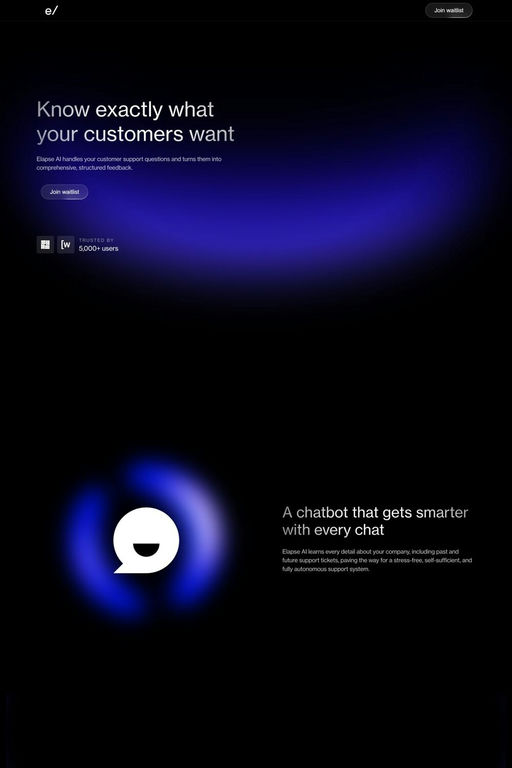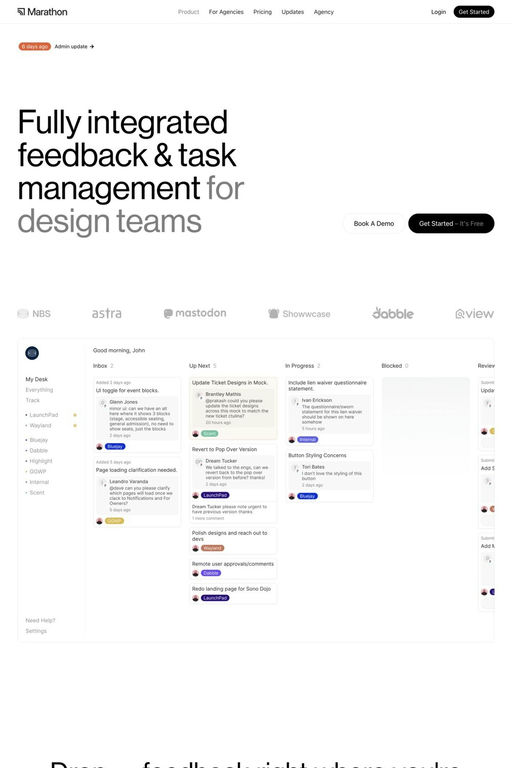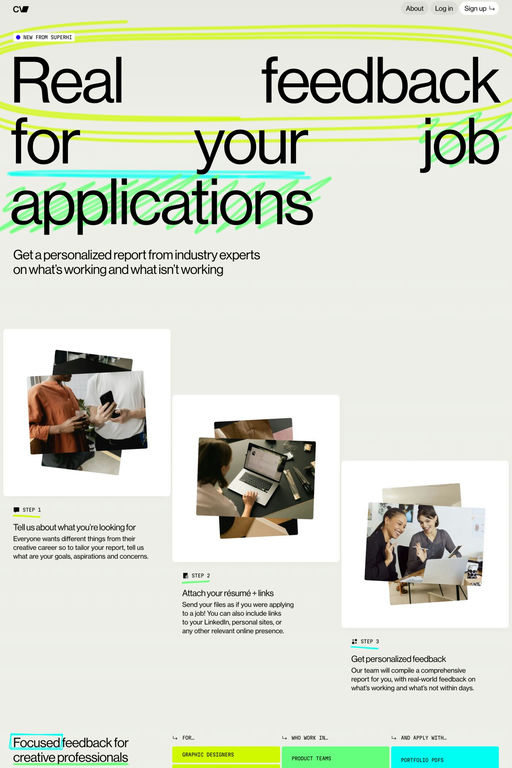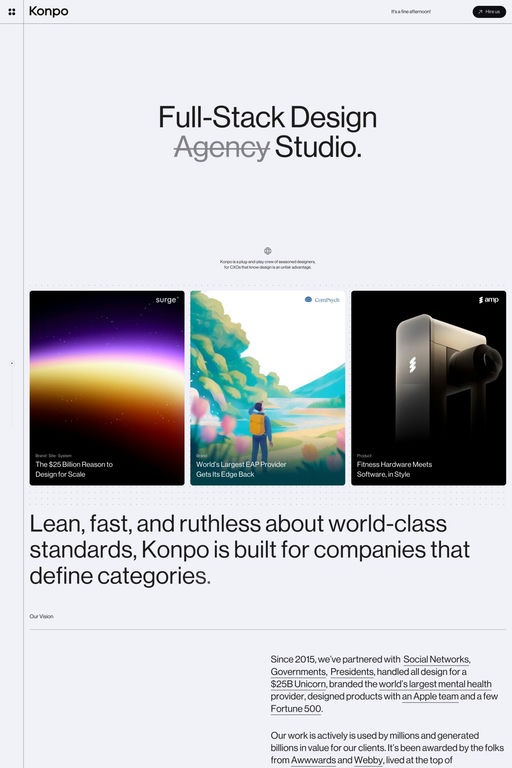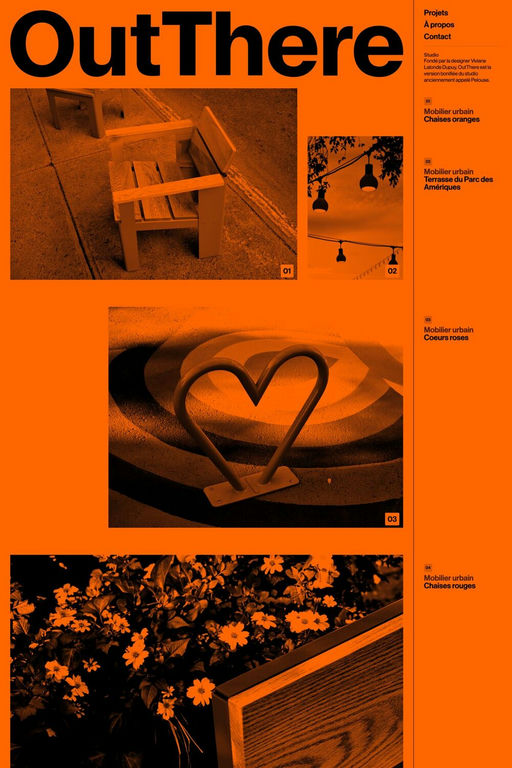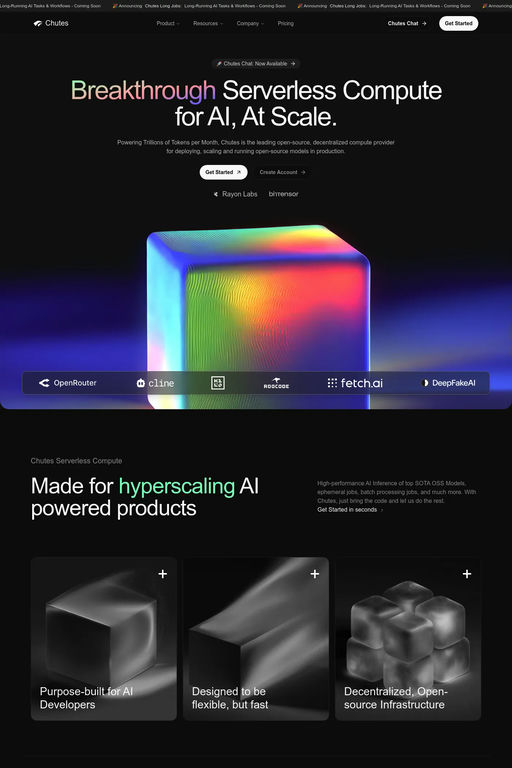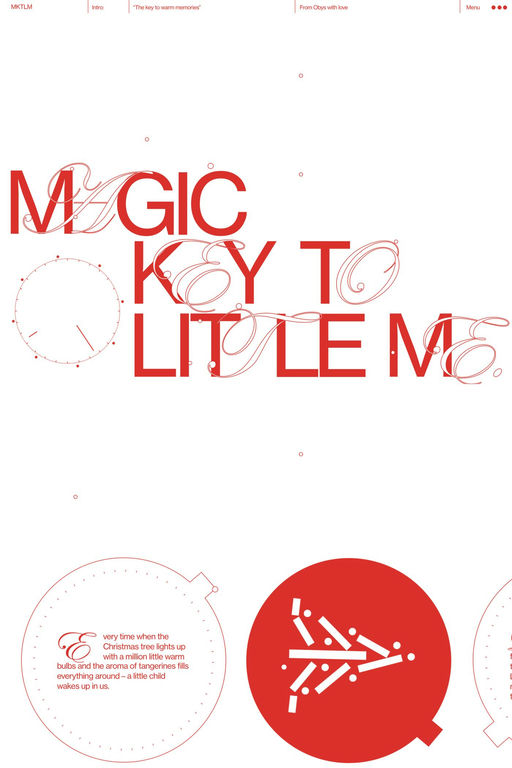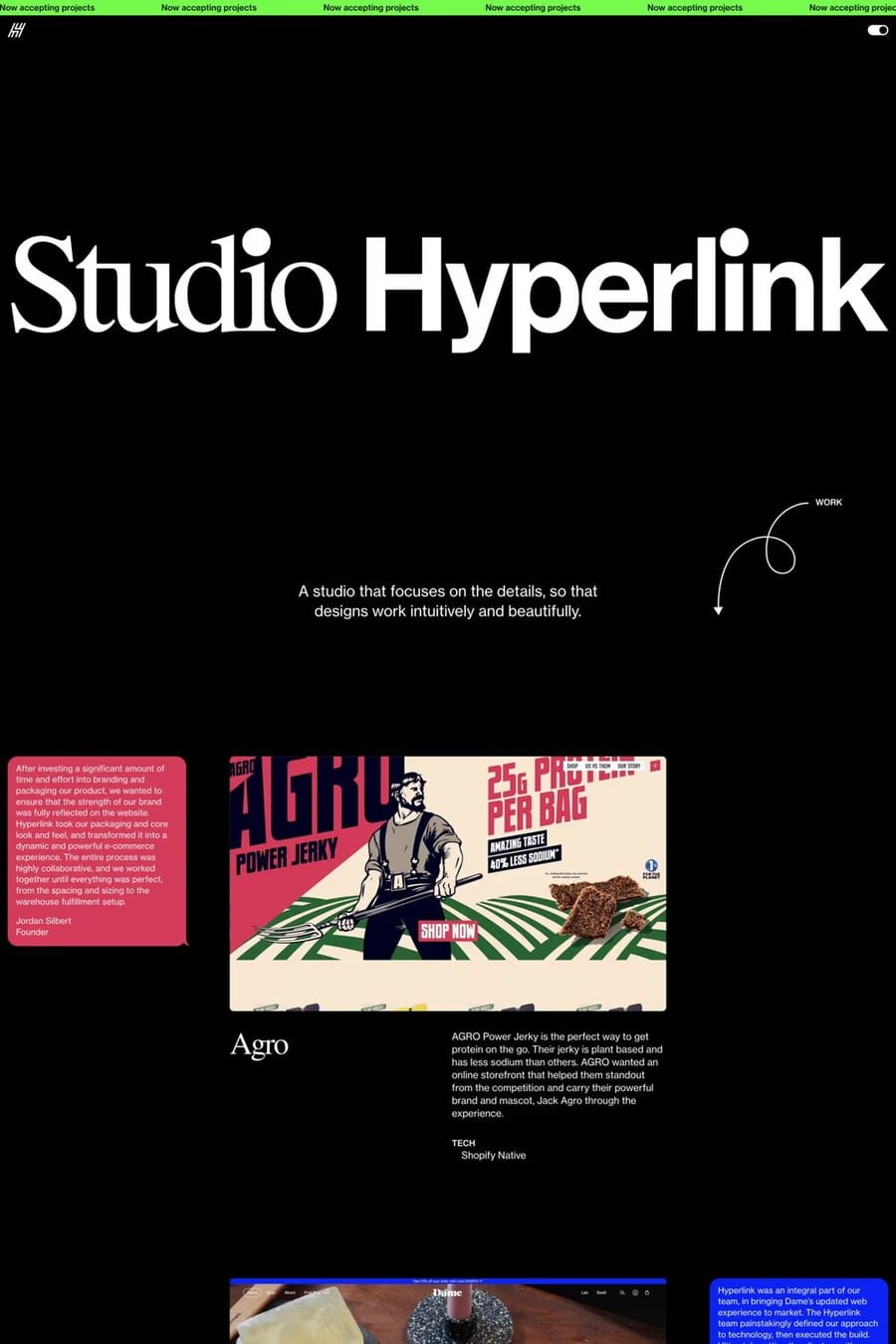
Neue Haas Grotesk is a sans-serif typeface from Commercial Type.
Completed for Richard Turley’s 2010 redesign of Bloomberg Businessweek, this typeface was a restoration project: bringing Miedinger’s original Neue Haas Grotesk back to life with as much fidelity to his original shapes and spacing as possible, rather than trying to rethink Helvetica or improve on current digital versions.